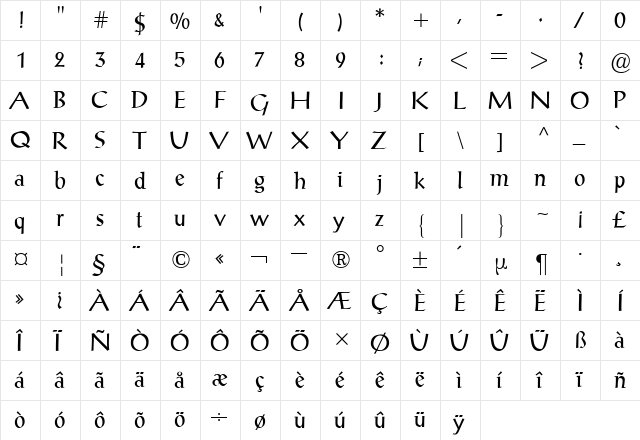
Post-Antiqua BQ Regular Font Preview
Post-Antiqua BQ Regular
Post-Antiqua BQ Regular Font Details
Design Context for Post-Antiqua BQ Typeface
Post-Antiqua BQ offers clean, dependable letterforms without strong stylistic allegiance, making it a practical choice for designers who need flexibility.